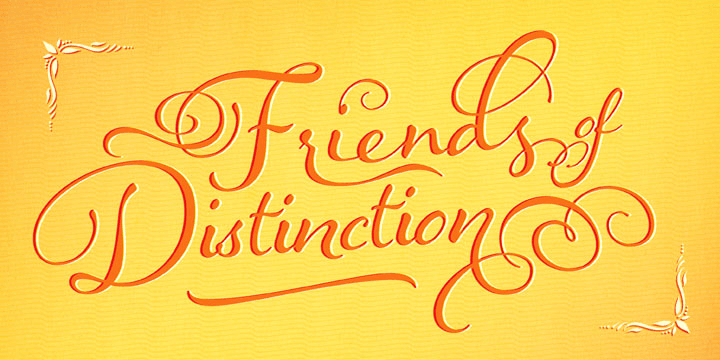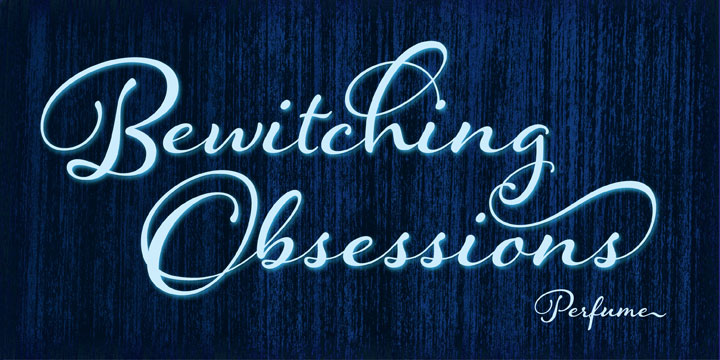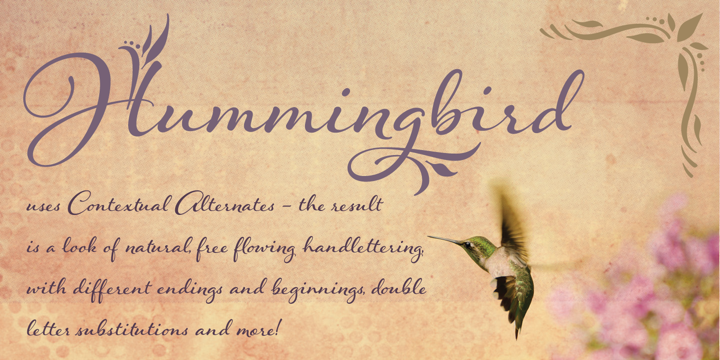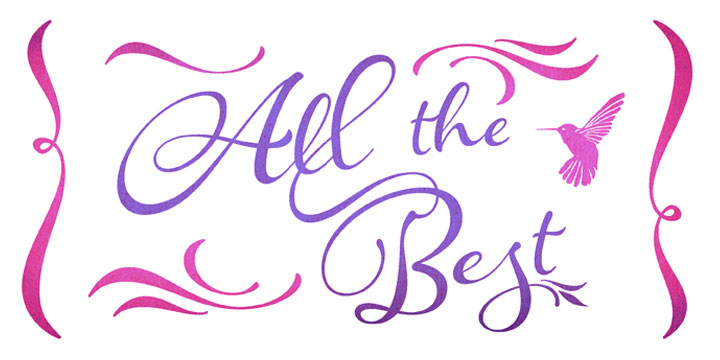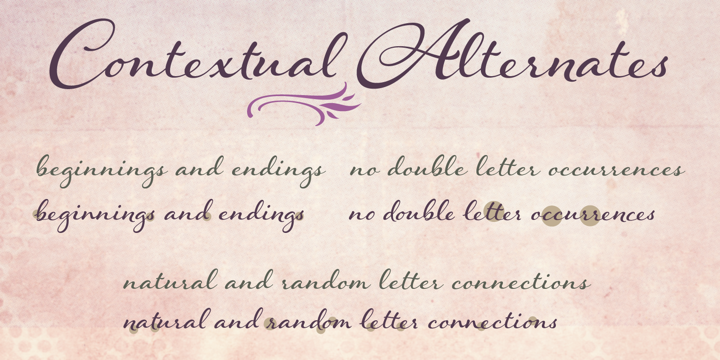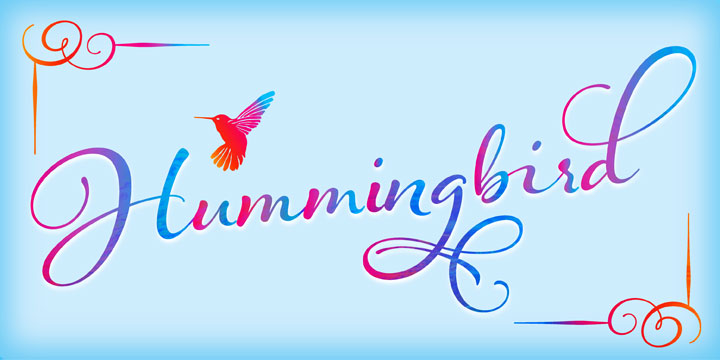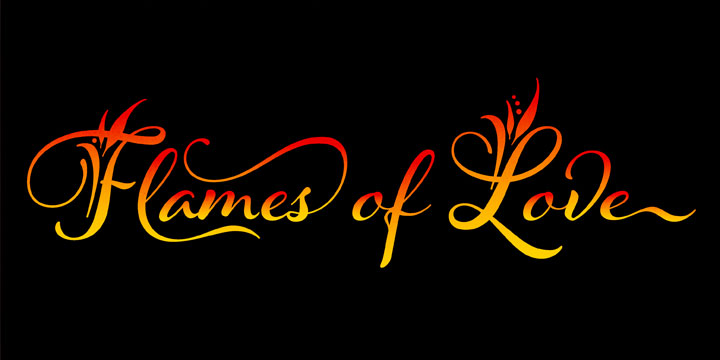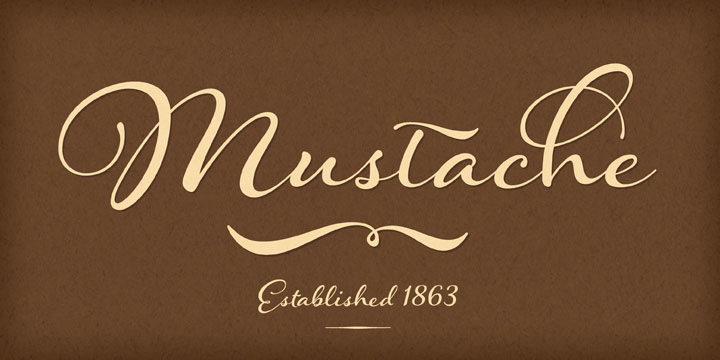
Hummingbird is a script font family. This typeface has two styles and was published by Laura Worthington.
Hummingbird is reminiscent of old-fashioned cursive penmanship, the sort learned by endless repetition and found in treasured letters bundled together by silken ribbons or in worn leather-bound ledgers. The aim, across the past few centuries, was a graceful, yet disciplined uniformity. But to the discerning eye, those hours of painstakingly practiced elegant scripts were still, at their essence, thoroughly human, filled as they were with unintentional variations in pressure, contrast, and fluidity.
My typeface, Hummingbird, uses technical sophistication to bring us a typeface that is lovely, sensual, airy, personal, and, in its sensitively wrought irregularities, as innately and intimately human as the writer’s hand and pen.